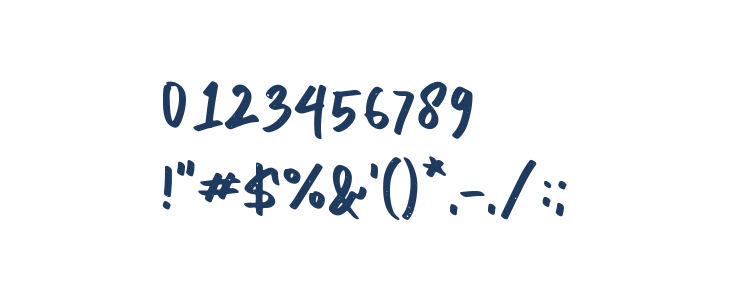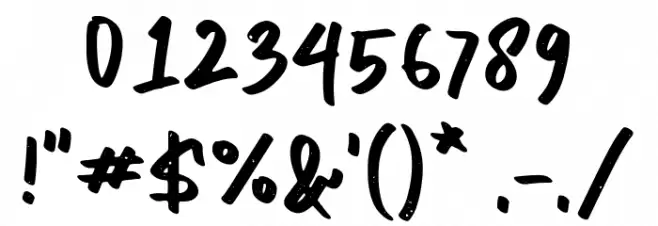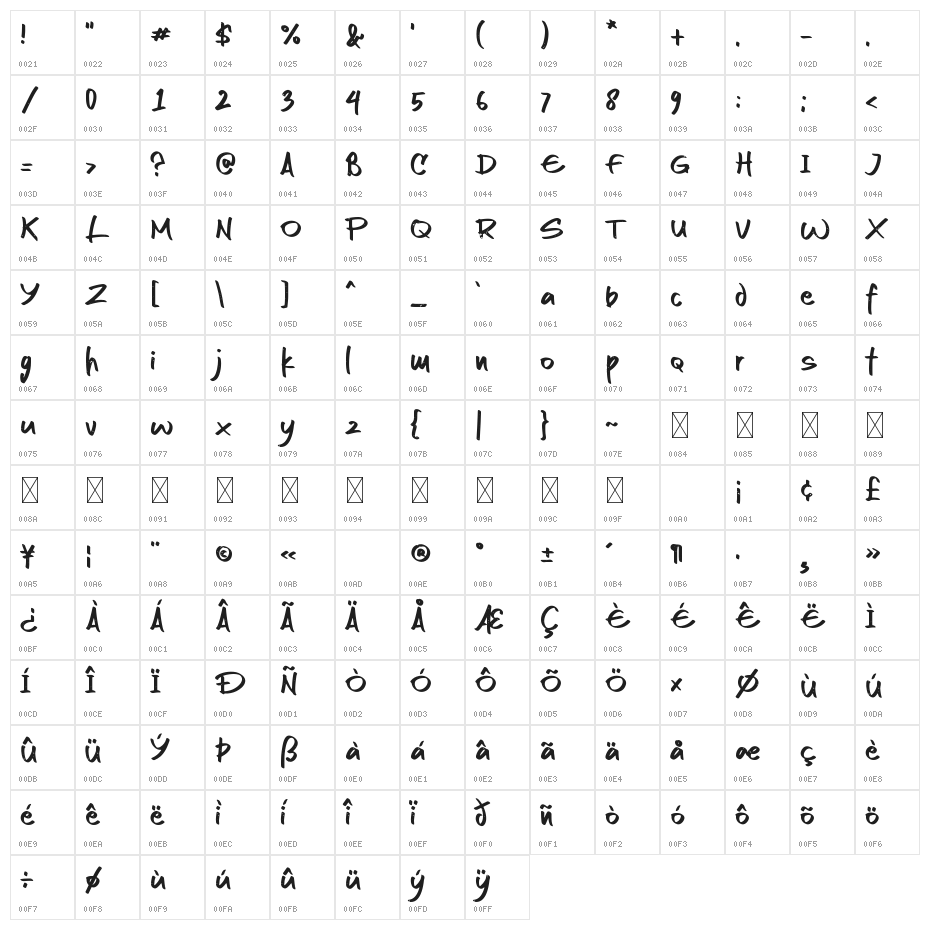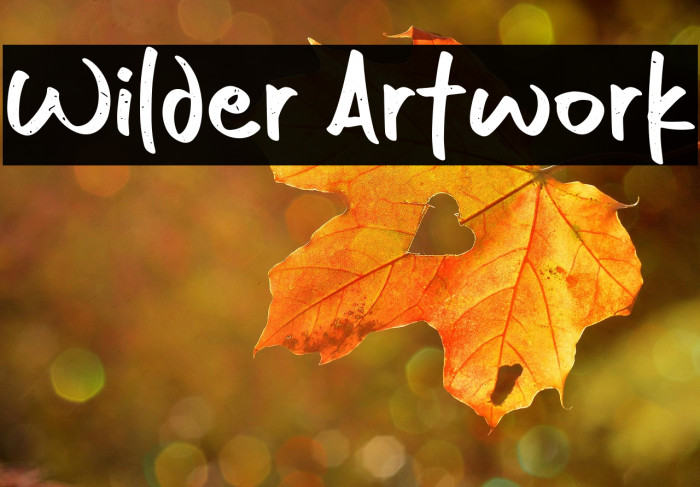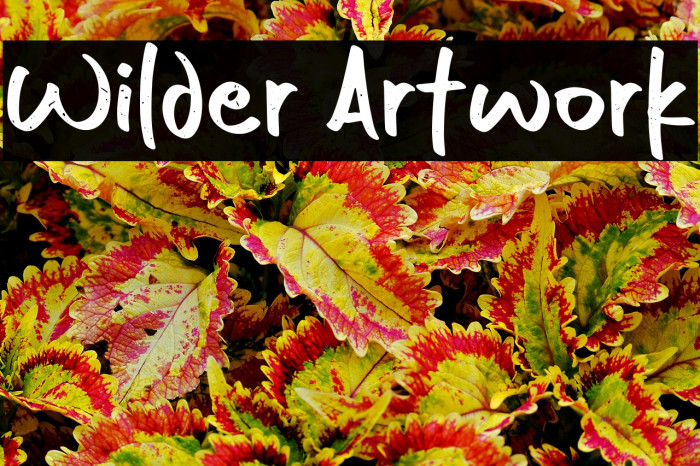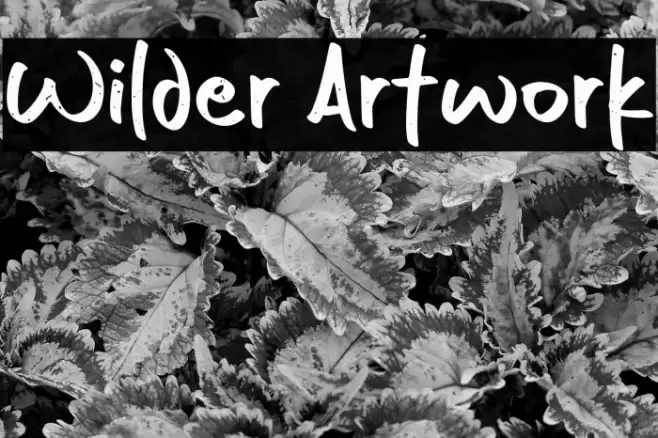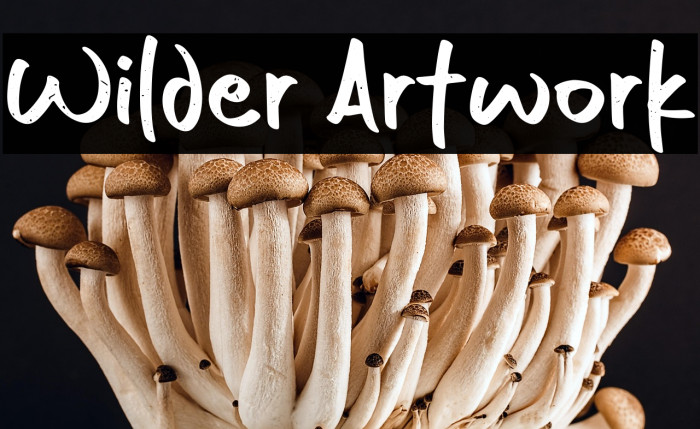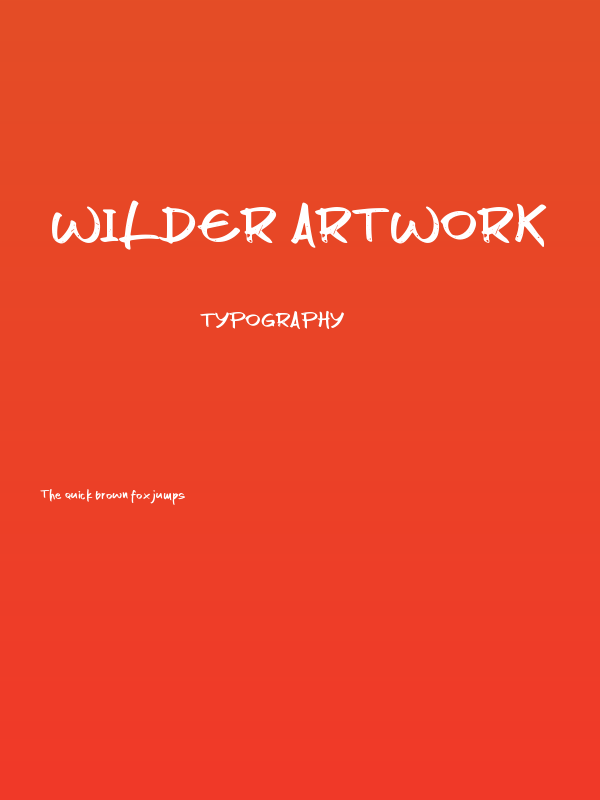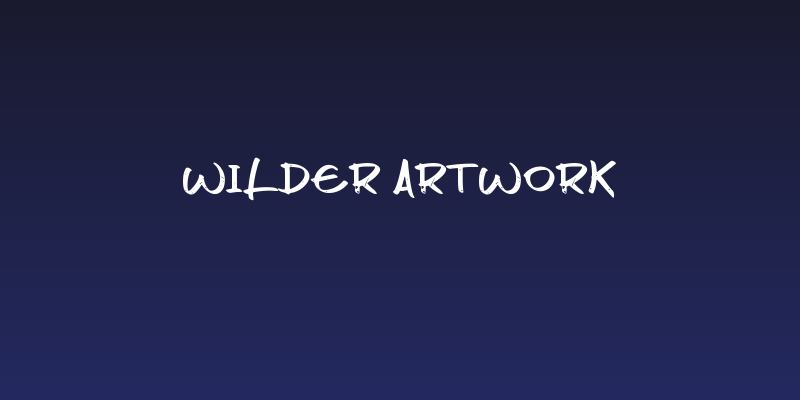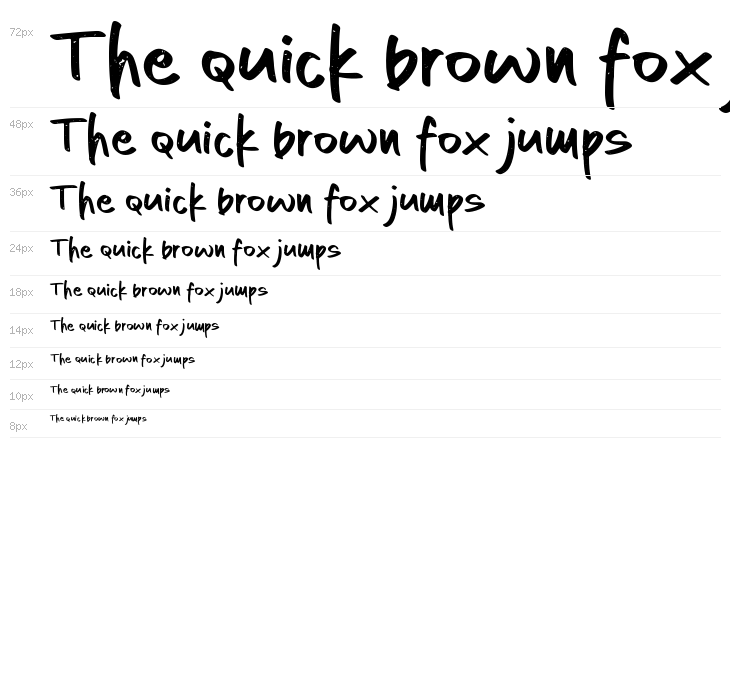
Wilder Artwork Font
Wilder Artwork Description
This font features a bold, expressive handwritten style with a playful and artistic flair. The characters are slightly irregular, giving it a natural, organic feel. The strokes are thick and varied, adding a dynamic and energetic quality to the text. The uppercase and lowercase letters maintain a consistent style, while the numbers and special characters complement the overall aesthetic. This font is ideal for projects that require a personal touch or a creative, informal vibe.
| Proposed Projects | Perfect for greeting cards, posters, branding, and social media graphics. |